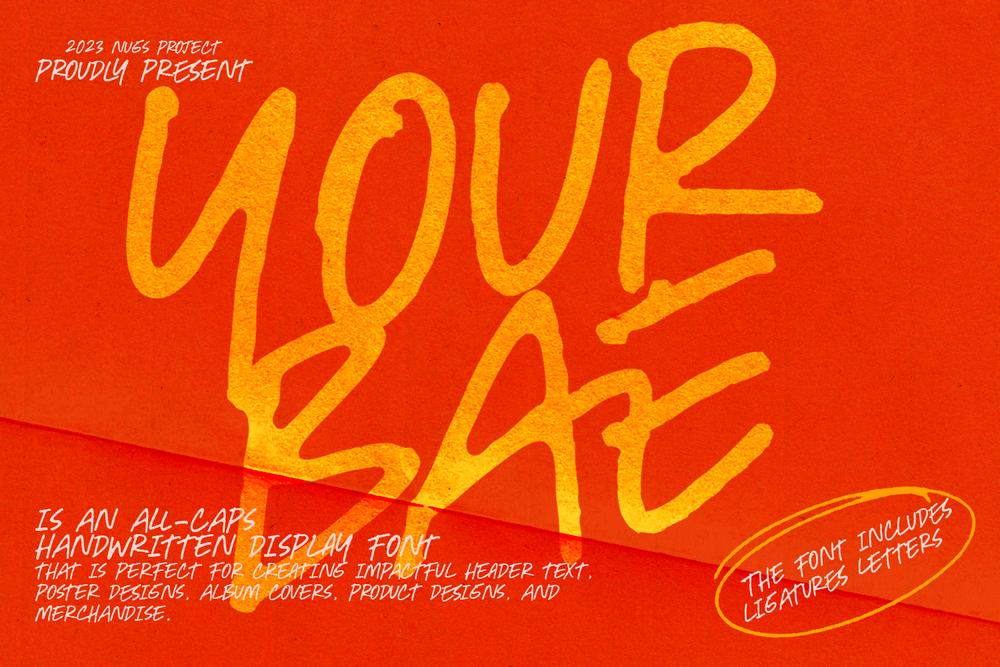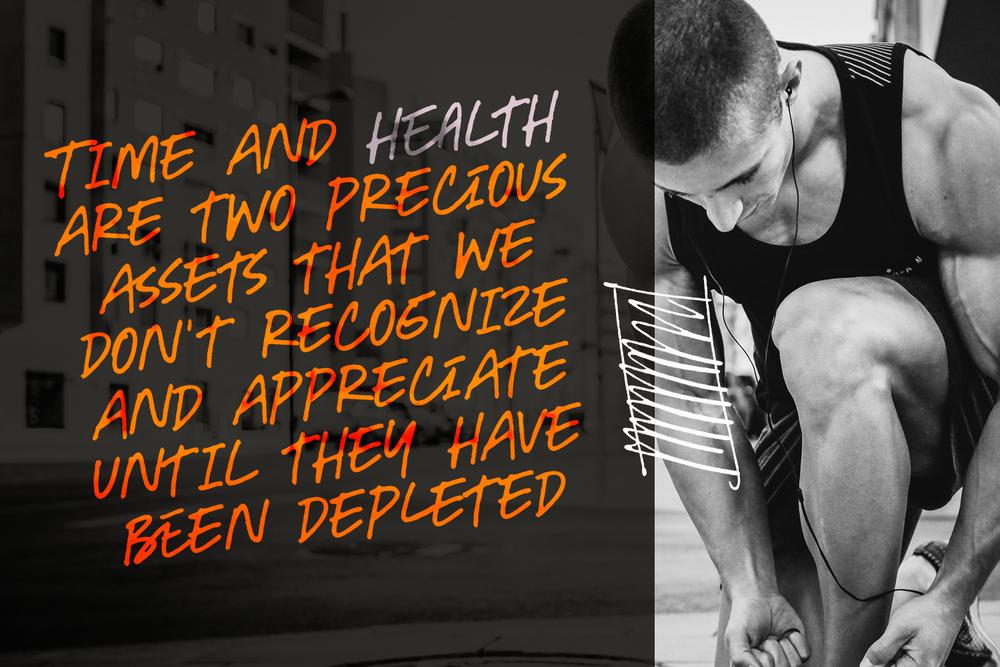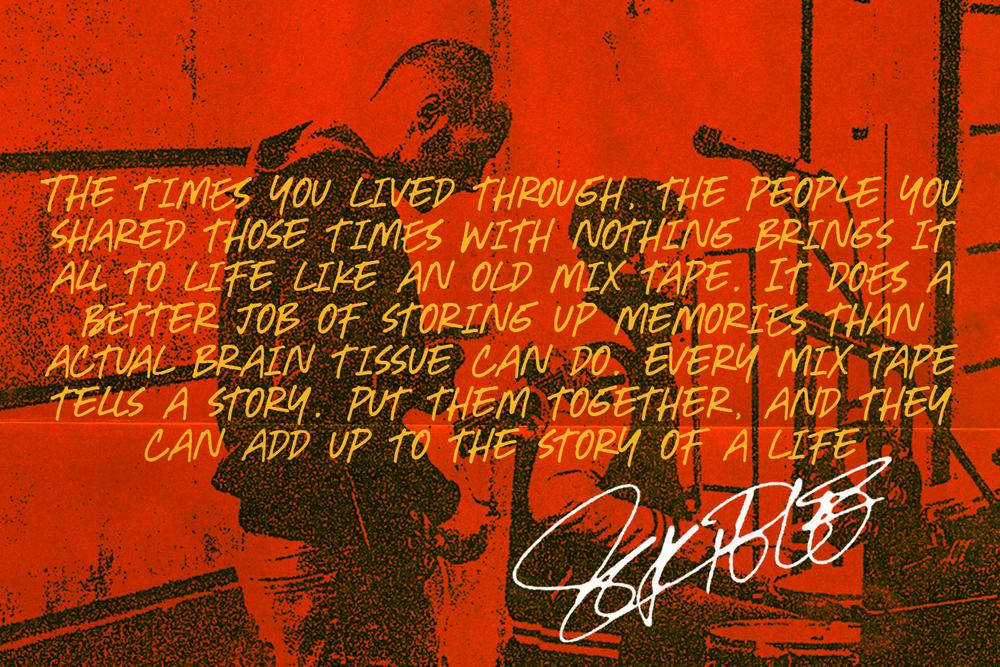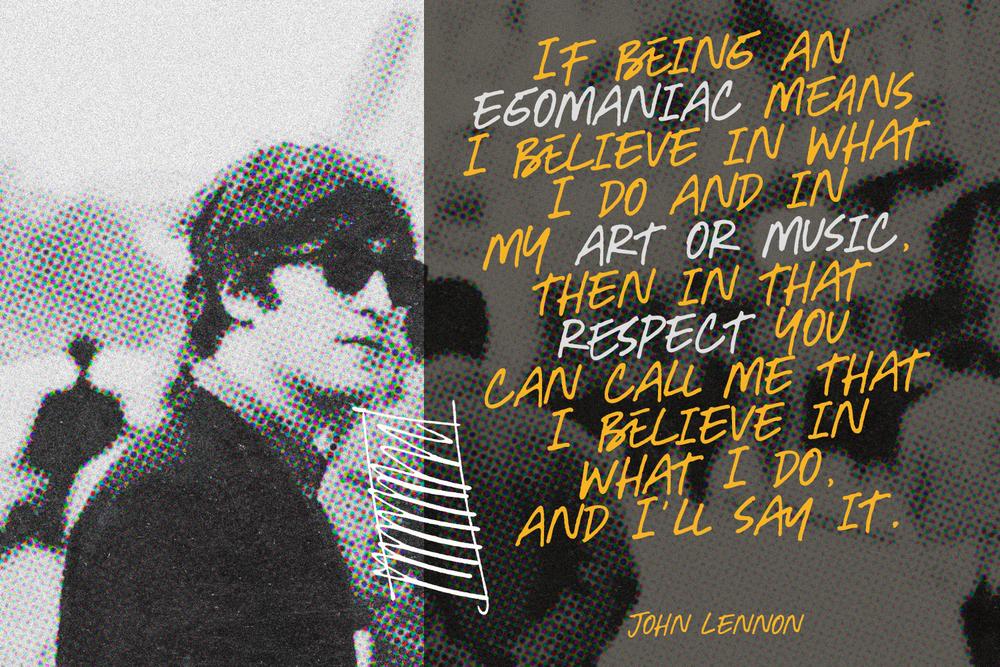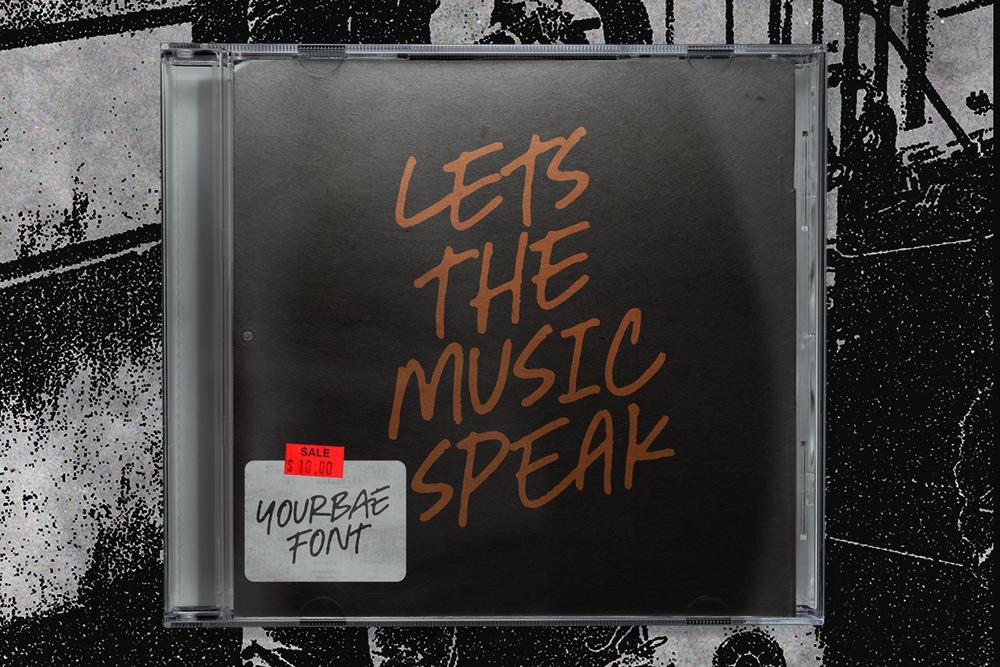
Yourbae
Handwriting
all-caps handwritten display font, that is perfect for creating impactful header text, poster designs, album covers, product designs, and merchandise. this font was crafted from handwritten text. However, as ligatures that complement one combination of letters